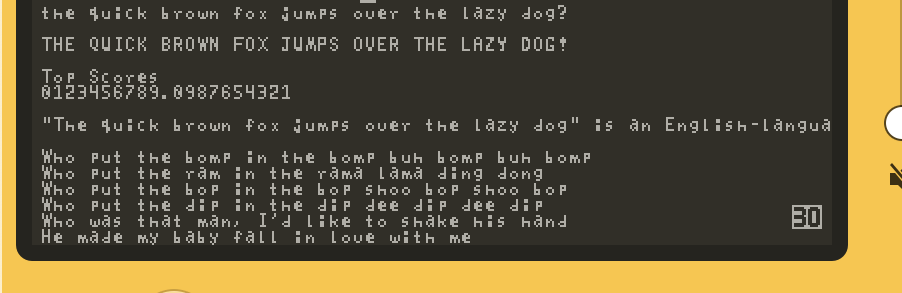
Monospace 5x8 font designed for "easy" readablity
I wanted a fairly small font that was also readable, and I also wanted monospacing, but without it looking too boring - maybe a bit whimsical. After fiddling with sizes, I found I could get something reasonable looking with with 5x8 pixels.
Here is what I came up with:
I updated the font with some new characters:
And also added a double sized version of it the fontset (10x16pixels). It is identical to the 5x8 version, but the pixels are doubled in width and height. This is good for titles and such.
It should be noted that on both of the games I made that used the 5x8 font, it ended up too small to be easily readable on the physical device, even though fine in the simulator. I recommend just using the 10x16.
I am thinking of making 8x12 font next to create a bit of an in between.